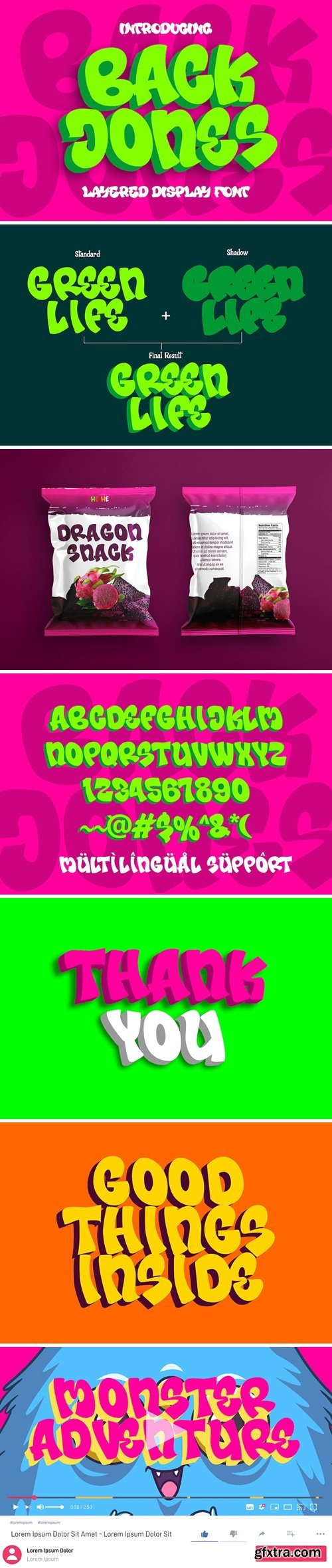
Back Jones - 可爱层叠显示字体
Back Jones is a captivating layered display font that combines vintage aesthetics with a modern twist. Inspired by classic sign painting and retro typography, this font features bold, block-like letterforms with a distinct layering effect. The different layers can be stacked together to create a three-dimensional appearance, adding depth and dimension to your designs. Back Jones exudes a sense of nostalgia and a touch of urban cool, making it perfect for attention-grabbing headlines, logos, branding materials, and posters. Its versatility allows for both bold and subtle variations, giving designers the flexibility to create visually striking compositions. With Back Jones, your designs will stand out with a retro-inspired flair.